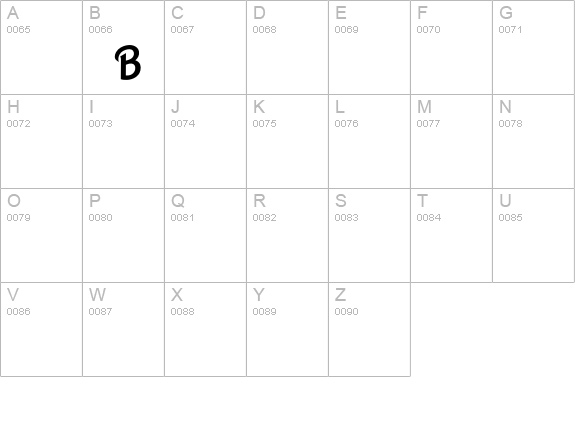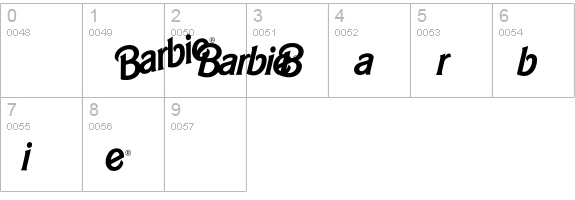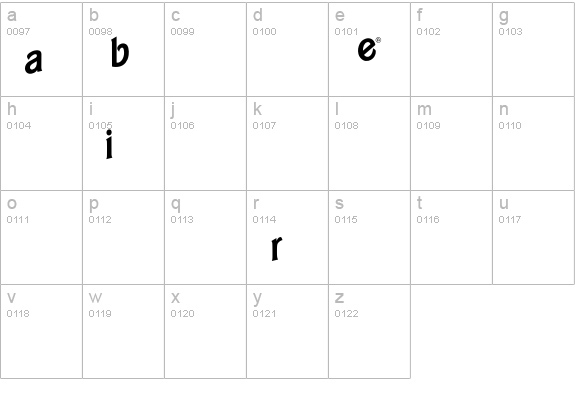
BarbieLogo-SansScript Font Details
BarbieLogo-SansScript font is a stylish and modern typeface that exudes elegance and sophistication. Its clean lines and sleek design make it perfect for a wide range of design projects, from branding to advertising to invitations. This versatile font is sure to add a touch of class to any project. The best part? BarbieLogo-SansScript font is completely free to download at FontsMarket.com. Yes, you read that right - you can get your hands on this stunning font without spending a dime. So why wait? Download BarbieLogo-SansScript font today and take your designs to the next level.